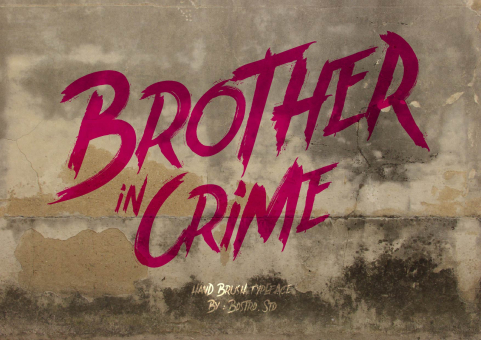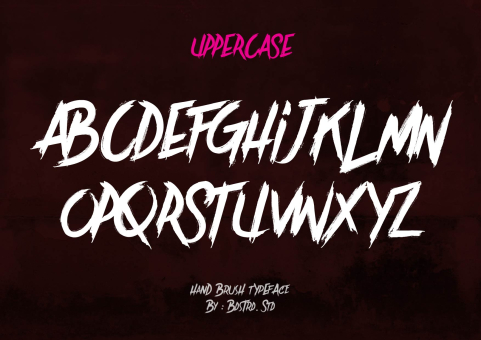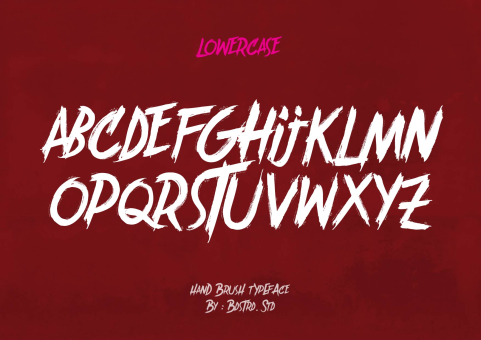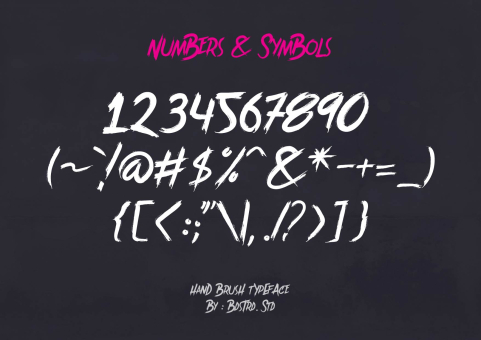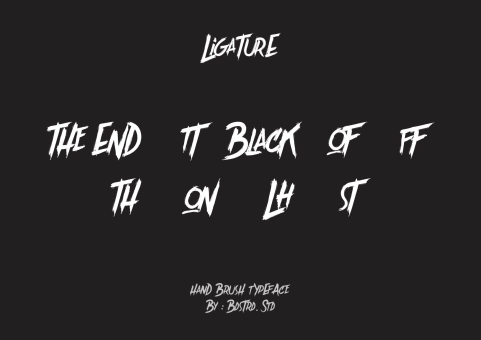
Brother In Crime
Brothers In Crime inspired by a handwriting on the wall of a slum. Then packed without prejudice to the texture of paint used to write it. Brothers In Crime is very suitable for the design of concert music, rock, metal, punk and more. Can also be used for purposes other designs.